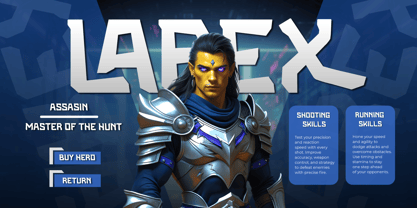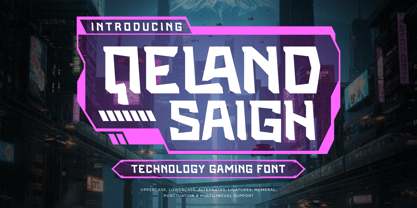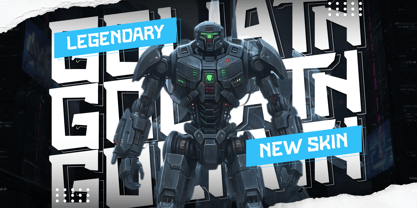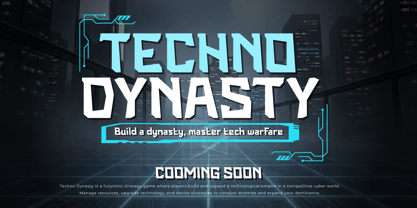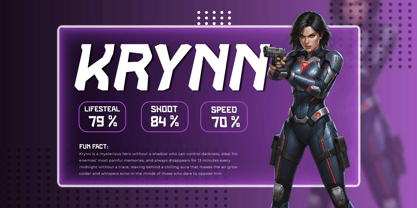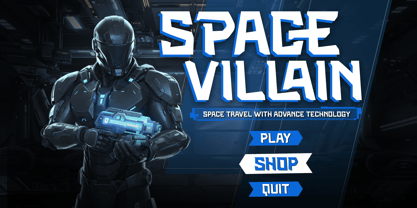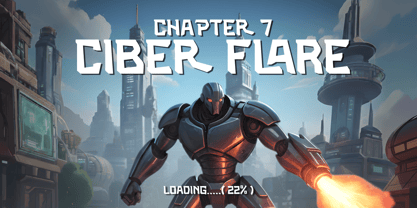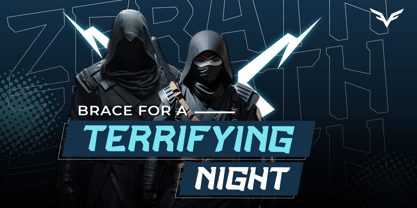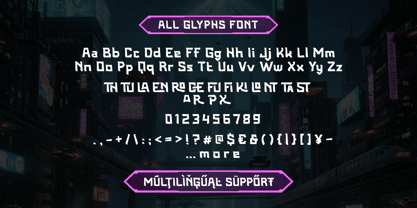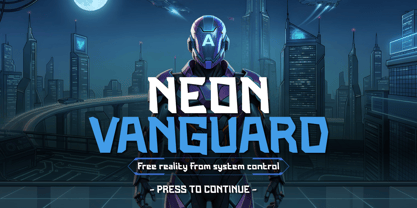
Qeland Saigh is a Modern Sans Serif typeface specifically designed for the visual needs of the Fintech and digital banking industries. With clean and geometric letterforms, this font delivers a professional and sophisticated impression. Its characteristics are ideal for building visual identities within Digital Banking and modern financial ecosystems that prioritize efficiency and innovation.
The design structure prioritizes visual clarity and high readability, making it a functional solution for Seamless Transaction UI in banking applications. Inspired by the minimalist aesthetics similar to Revolut or BCA Digital styles, Qeland Saigh ensures every character and digit remains clearly readable across various mobile screen sizes. This helps designers create a smooth and visually trustworthy user experience.
As a future-ready digital typography solution, Qeland Saigh is highly effective for corporate branding, virtual debit card designs, and modern financial reports. The font offers a balance between technical flexibility and a contemporary character for financial institutions prioritizing credibility. Qeland Saigh is a professional asset for strengthening information hierarchy in secure, modern, and innovative interface designs.
Qeland Saigh